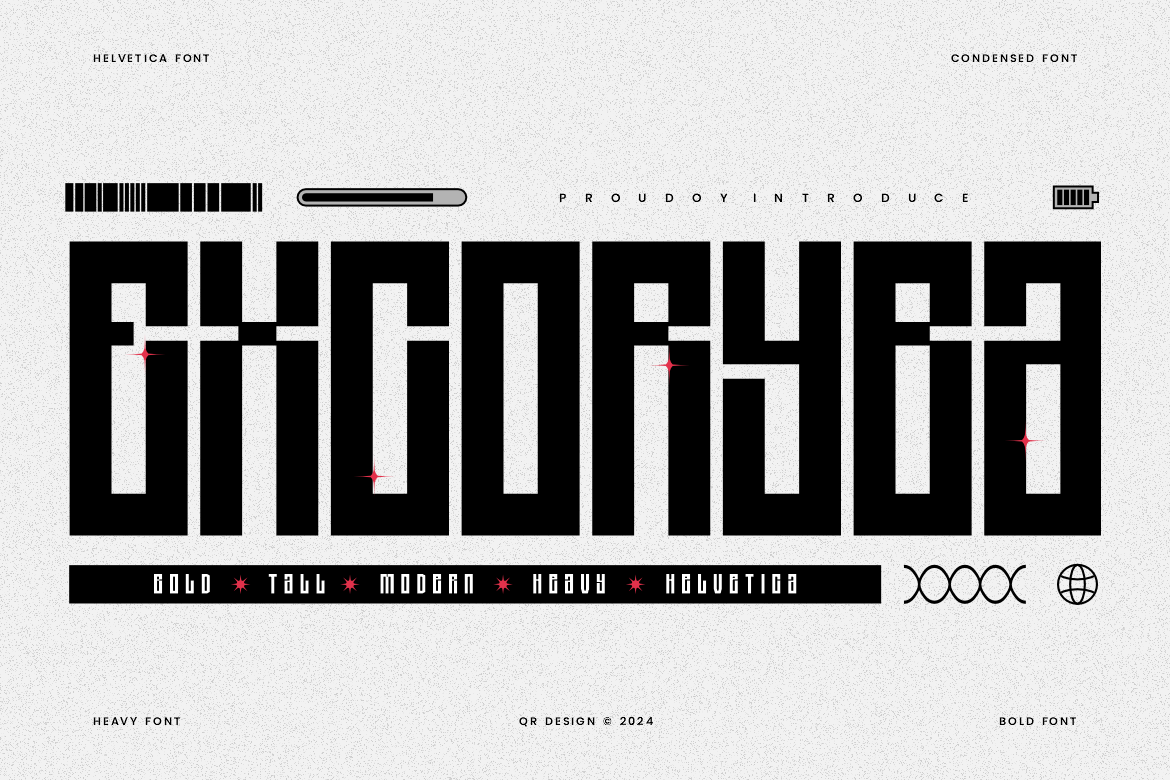
Excoryba - Futuristic & Tall Font
Excoryba Font is a bold and authentic display font. The font is suitable for any branding project like poster, logo, sport, and many more. Outstanding in a wide range of contexts.